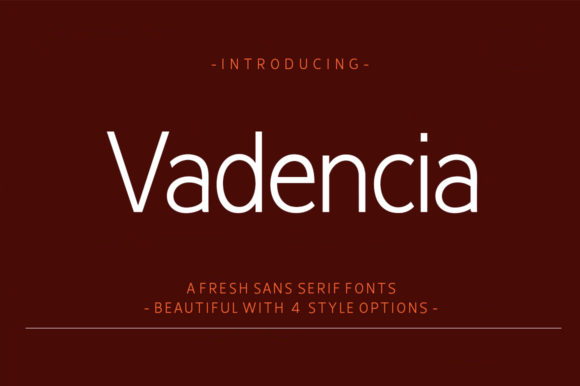
Prepare your design to radiate joy and unforgettable moments with Vadencia Font, the perfect font for adding a touch of celebration to your personalized greeting cards, invitations, and social media posts. Its elegant sans serif style exudes a sense of cheerfulness, making your words shine with a vibrant energy that will captivate every reader.
Whether you're celebrating birthdays, anniversaries, or simply spreading happiness, Vadencia Font empowers you to create unique and heartfelt designs that will leave a lasting impression. The carefully crafted curves and delicate details add a touch of sophistication to your creations, ensuring they stand out with a charm that will warm the hearts of your loved ones.
With Vadencia Font, you'll discover a world of possibilities to express your joy and creativity. Let your imagination soar as you create enchanting invitations that invite guests to share in the merriments, or design greeting cards that convey your heartfelt wishes in an unforgettable way. The possibilities are endless, and the results will always be filled with the spirit of celebration.
Indulge in the joy of creating with Vadencia Font and make every design a testament to the special moments you cherish. Let your words dance across the page, carrying with them the essence of happiness and leaving behind a trail of smiles wherever they go. Embrace the power of this remarkable font and unlock the joy within your designs today!